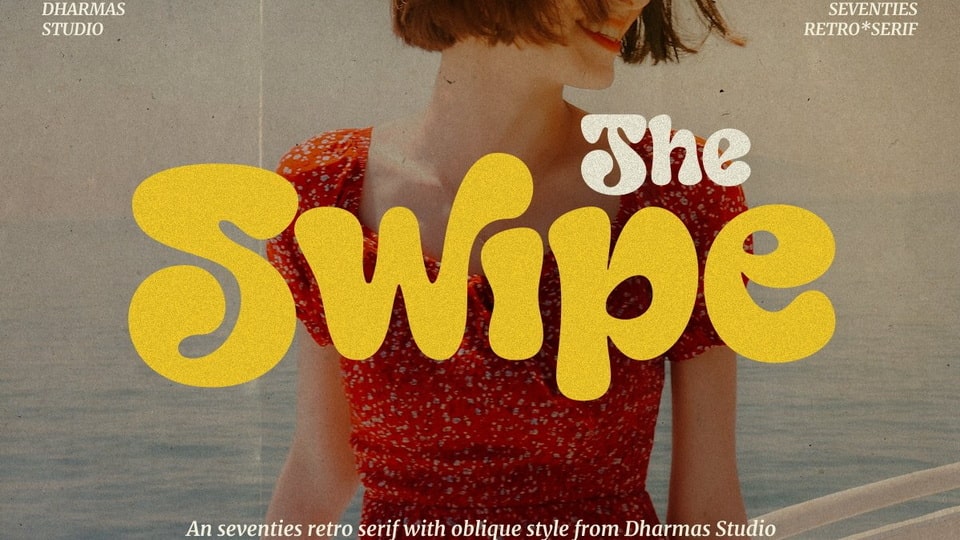
Download Swipe font, a seventies typeface that has both a retro and fun look. Swipe comes with a smooth curve and soft bold look with a regular and oblique style that will make your project more stunning with nostalgic feels.